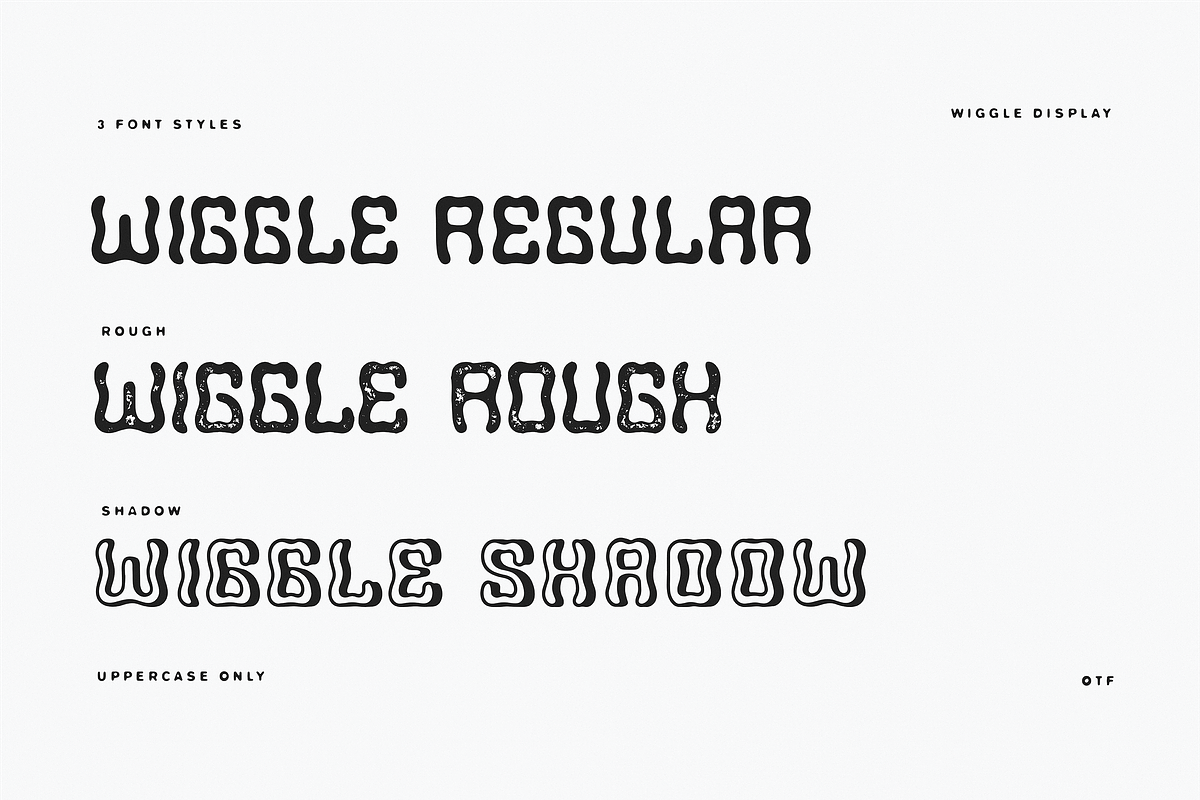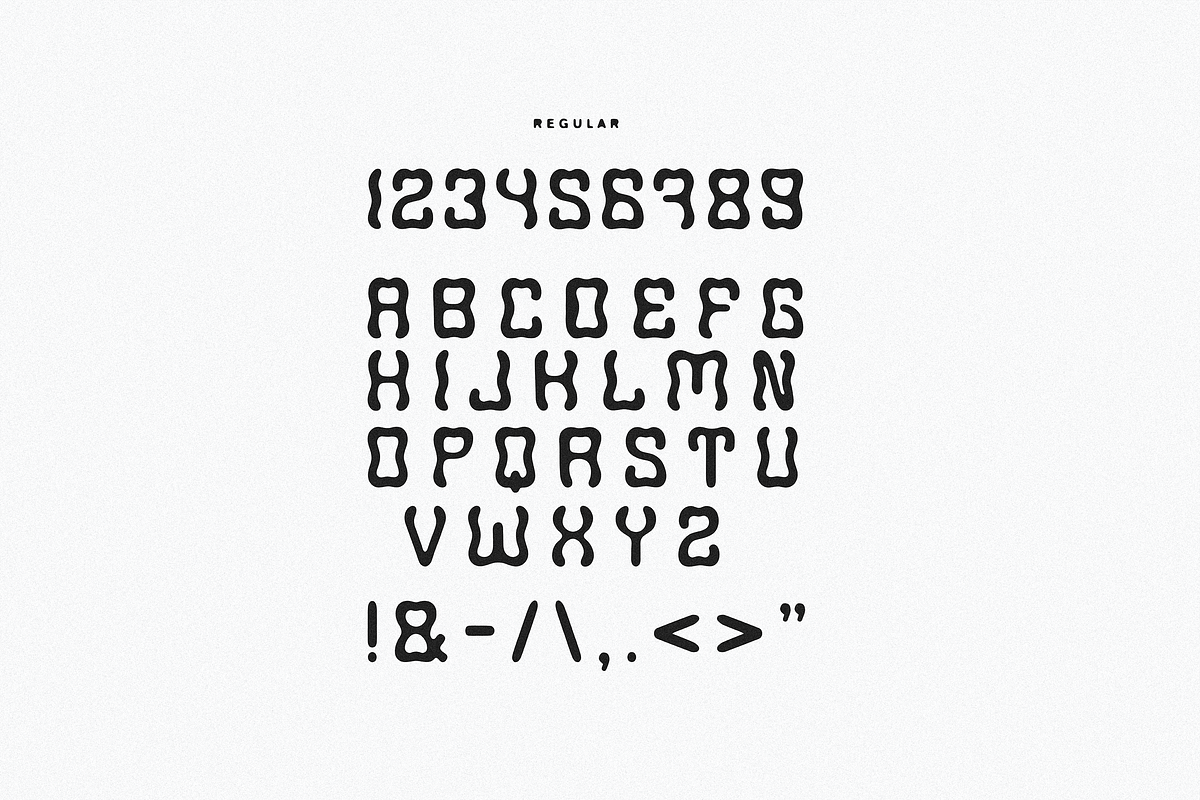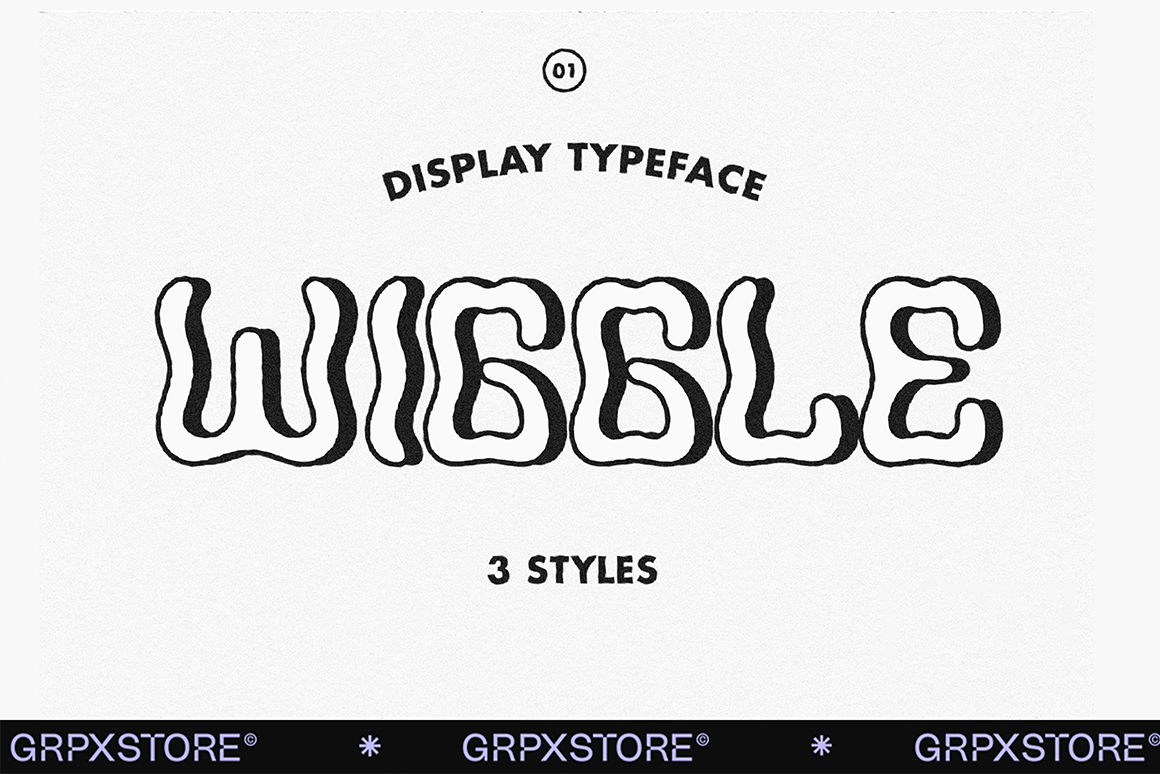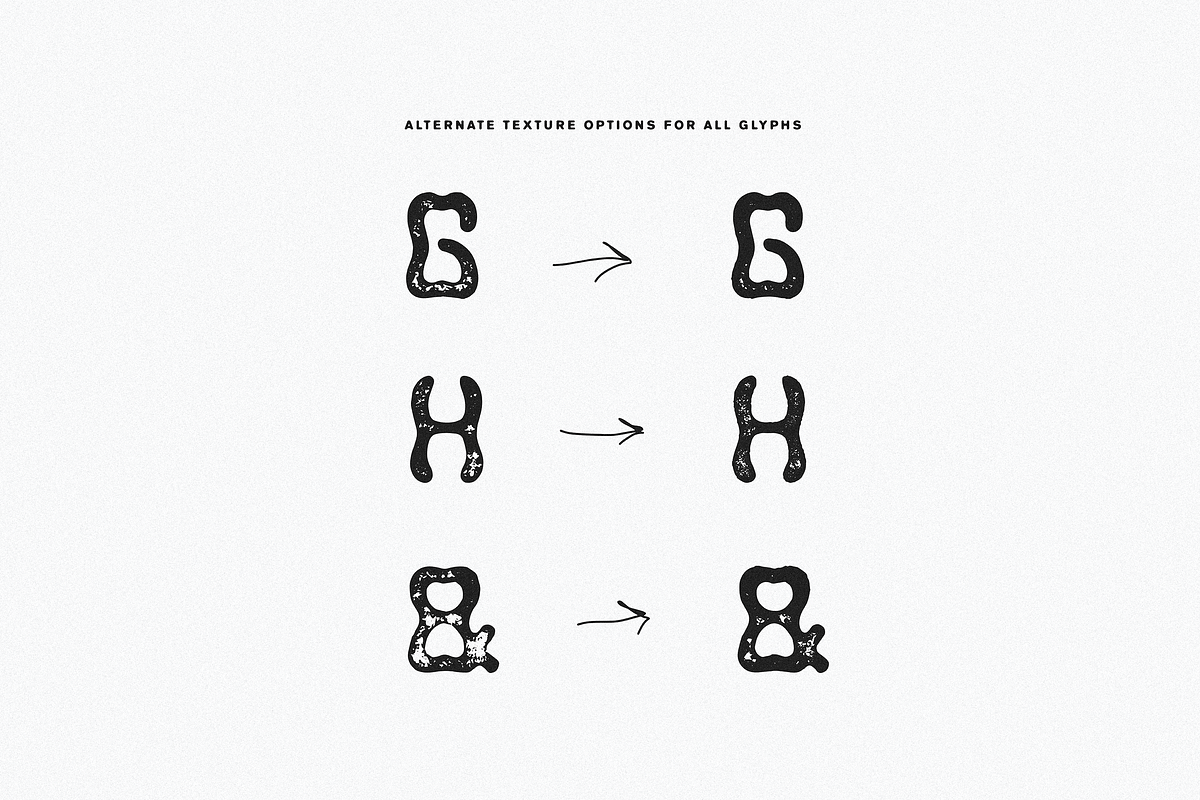
Wiggle Display Font
Wiggle Display
Wiggle Display is a fun and simple hand-drawn uppercase only typeface in 3 styles - regular, rough and shadow. Rough style Includes alternate texture options for each glyph.